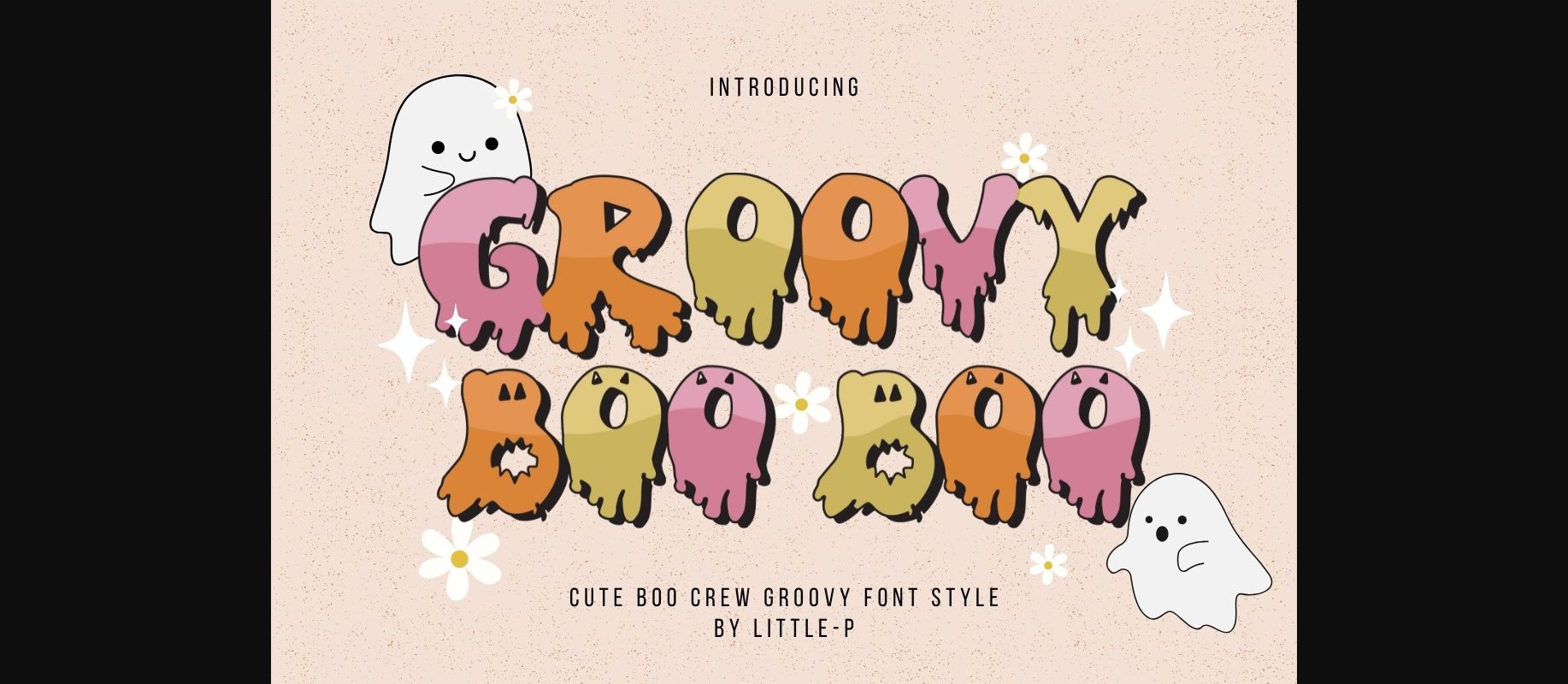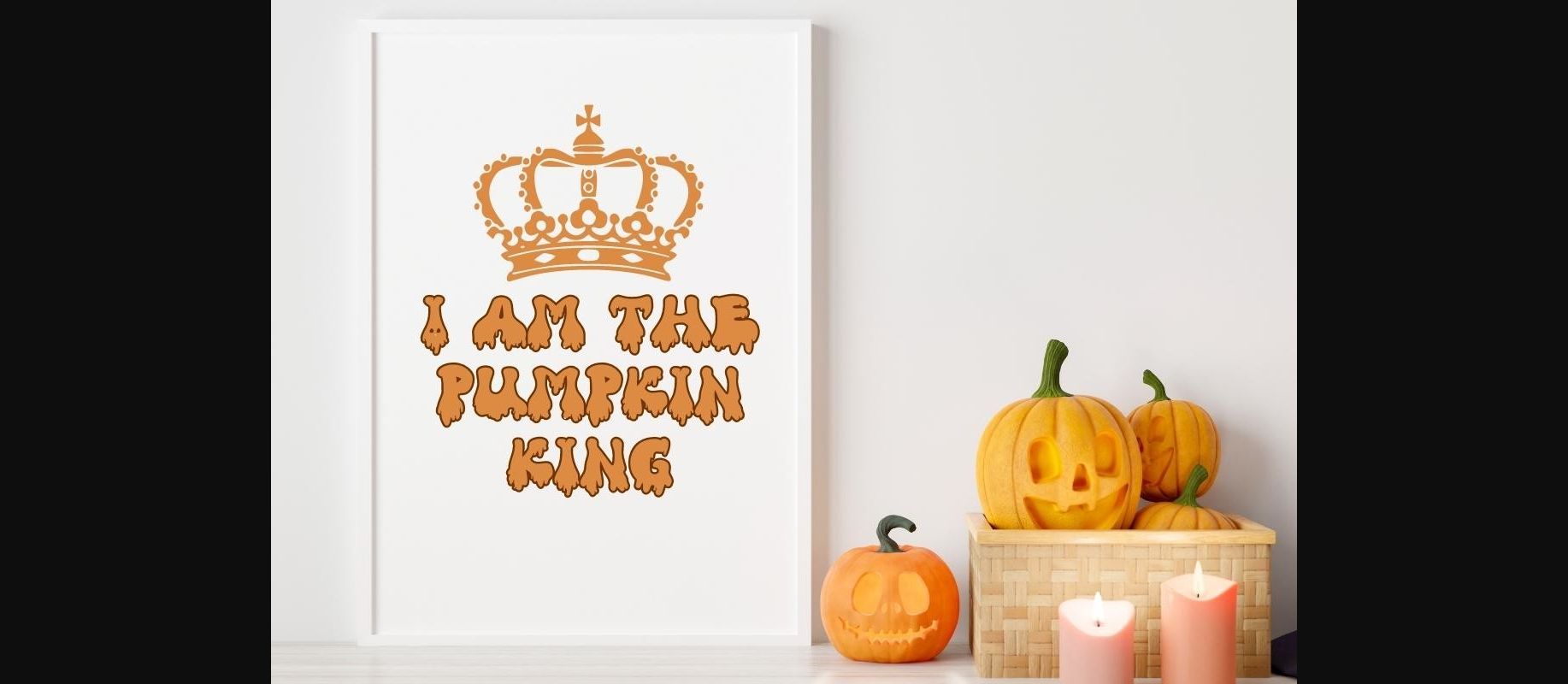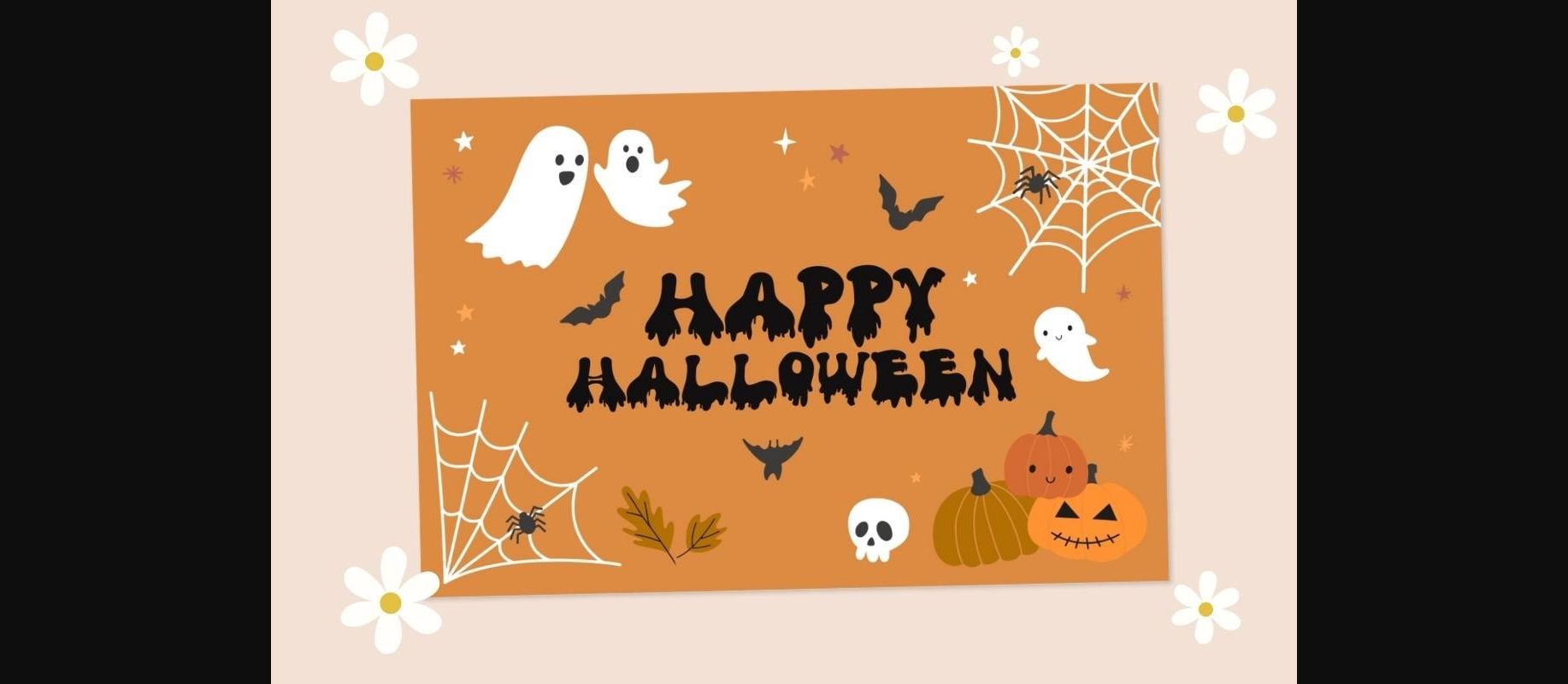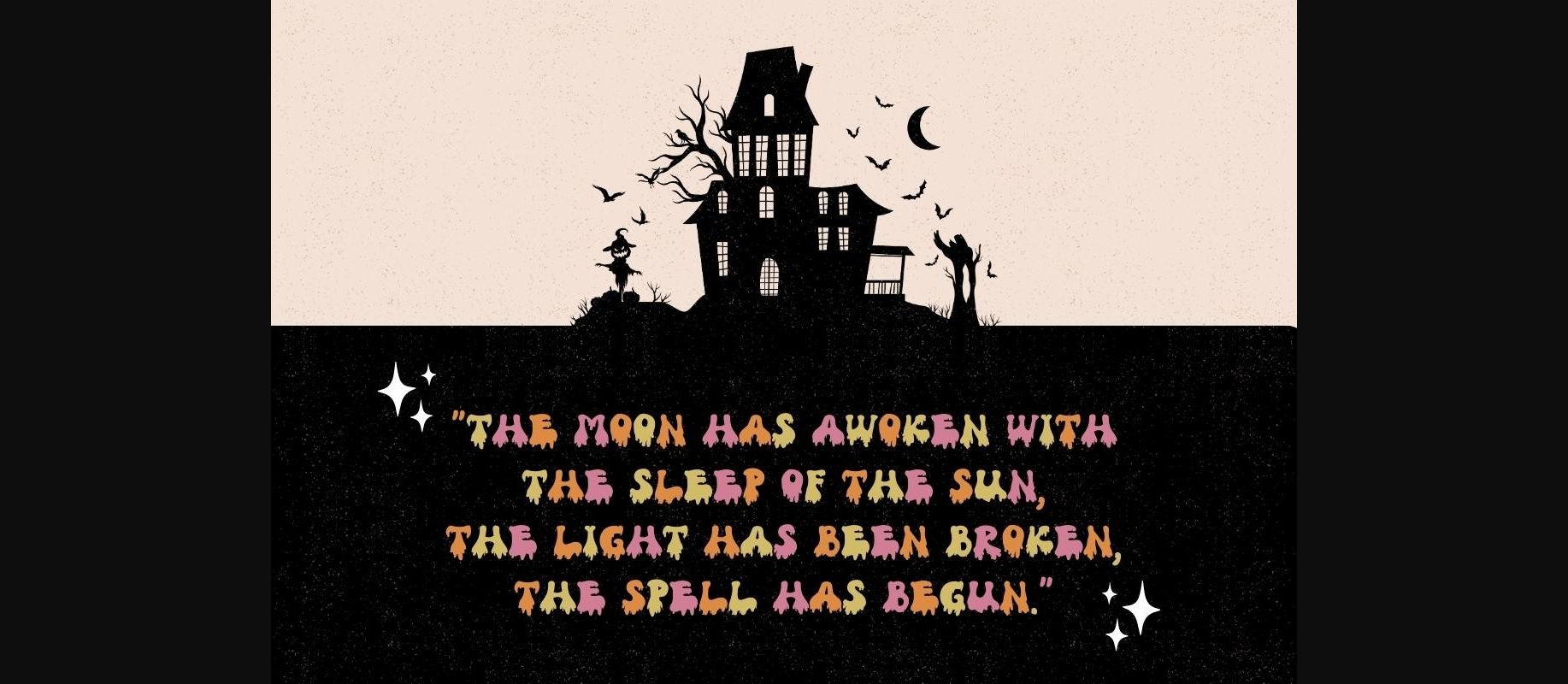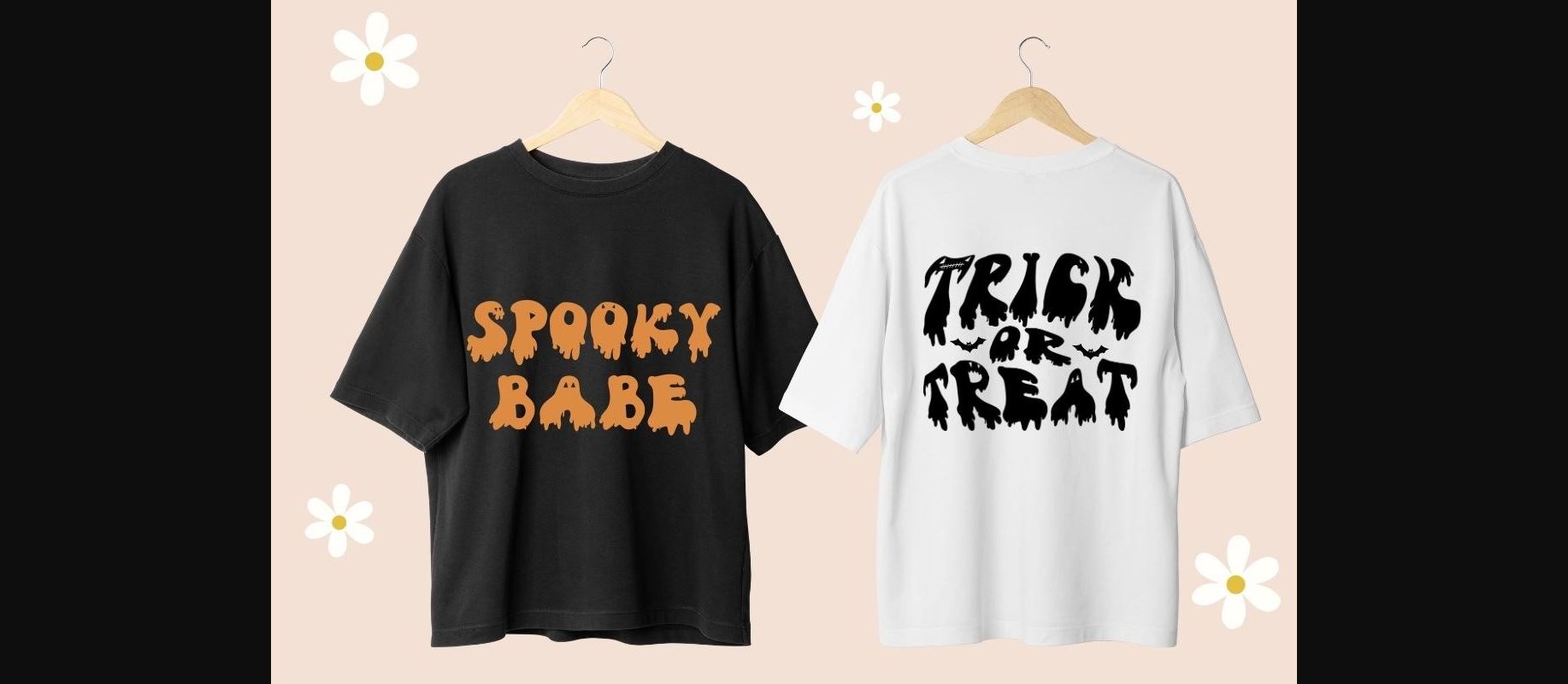
About Groovy Boo Boo Font
Introducing “Groovy Boo Boo,” the display font that brings a cute, spooky, and playful vibe to your Halloween-themed designs. With its groovy and slime-inspired style, Groovy Boo Boo captures the spirit of Halloween in a delightful and captivating way. This font is the perfect choice for creating eye-catching Halloween posters, eerie Halloween cards, spooky T-shirt designs, chilling horror book covers, and merchandise in the Halloween theme. Whether you’re designing fun stickers or unleashing your creativity in any other Halloween project, Groovy Boo Boo adds a touch of charm and uniqueness to your creations. Embrace the spooky and playful allure of Groovy Boo Boo font and get ready to make a statement with this fun and versatile Halloween-themed font.